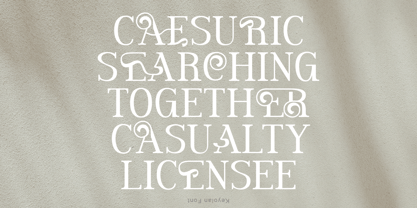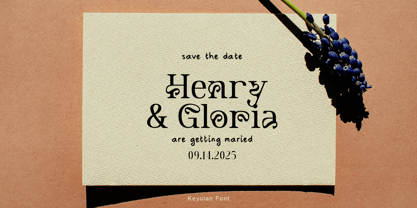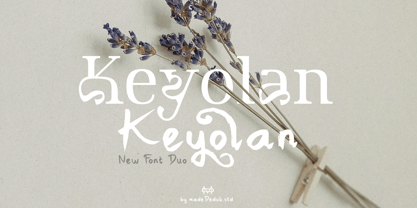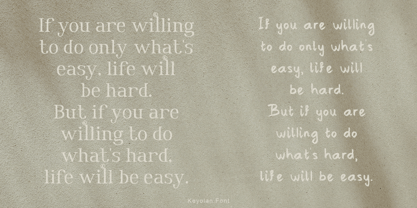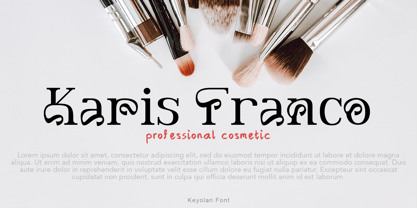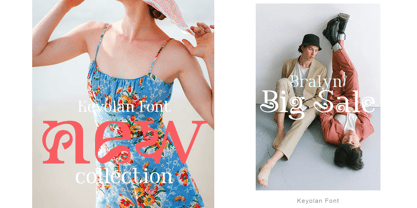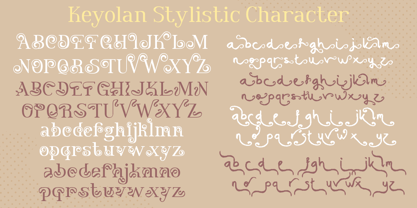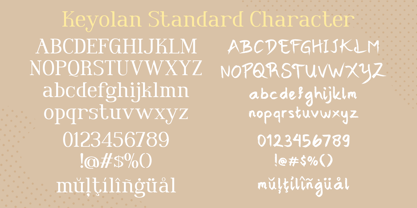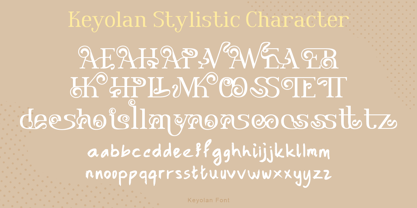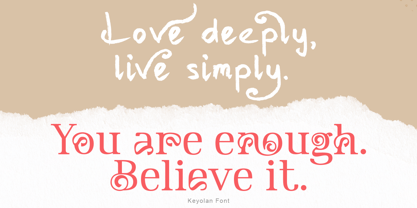
Keyolan
by madeDeduk
The Keyolan Font Family was designed by madededuk and published by madeDeduk. Keyolan contains 2 styles and family package options. More about this family
Keyolan is a fontduo serif font combined with handwriting brush. This font has a modern minimalist and simple look. However, this font brings a luxurious and attractive style to modern logos, websites, social media quotes, wedding stationery, and more.
Designers: madededuk
Foundry: madeDeduk